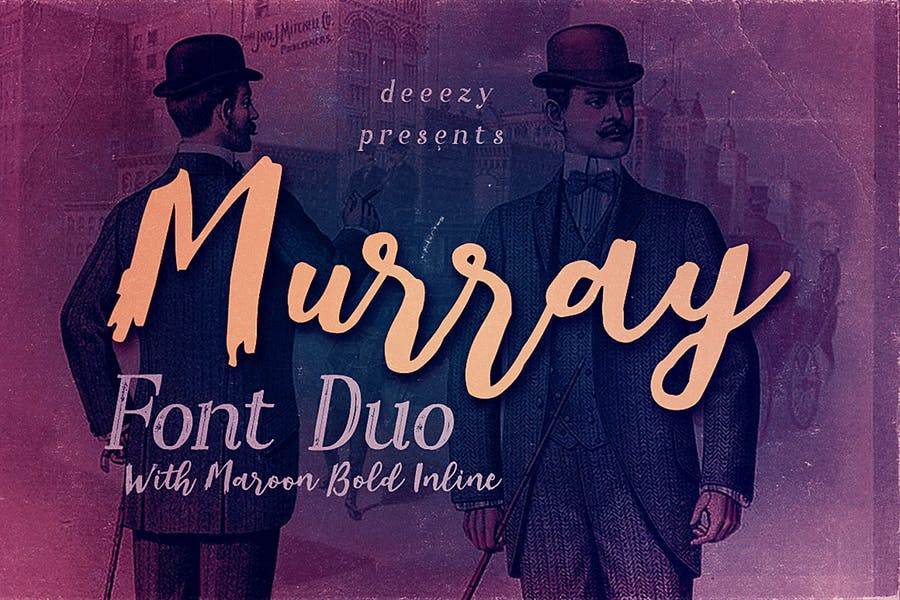
Murray Script Font
Murray Script Font is perfect for elegant wedding invitations, sophisticated stationery designs, upscale boutique branding, refined calligraphy services, luxury event materials, graceful personal branding, distinguished greeting cards, premium beauty products, exclusive social communications, and cultivated lifestyle brands.
Murray Script Font creates excitement because it embodies the timeless elegance and sophisticated charm of classic penmanship with its flowing script letterforms and refined character design. The font's graceful curves and aristocratic aesthetic instantly convey cultural sophistication and personal distinction, making any brand appear elegant and authentically refined. Its carefully crafted calligraphic details and distinguished character create an immediate sense of personal elegance that captivates audiences seeking sophisticated experiences, refined quality, and products that celebrate the transformative beauty of elegant handwriting and personal distinction.
The Murray Script Font family includes multiple weights and styles: Regular, Bold, Light, Medium, Italic, Condensed, Extended, Elegant, Graceful, and Distinguished versions. Each variant maintains the font's signature refined character while offering different levels of calligraphic styling and elegant authenticity suitable for various luxury and personal applications.
This sophisticated typeface brings the authentic spirit of refined penmanship into contemporary elegant design with remarkable grace and distinguished appeal. Murray Script Font Free Download provides luxury brands and personal service organizations with access to premium script typography that embodies the essence of personal refinement and calligraphic excellence. The font's elegant design and sophisticated authenticity make it ideal for businesses seeking to establish meaningful connections with discerning audiences who appreciate personal elegance, refined craftsmanship, and the transformative power of sophisticated communication that reflects personal distinction and cultural refinement. Whether you're creating materials for luxury events, designing communications for personal services, developing branding for elegant establishments, or producing content for refined lifestyle brands, this font delivers the sophisticated atmosphere that resonates with audiences seeking genuine elegance, personal quality, and the refined distinction that comes from embracing authentic sophisticated culture. Its versatile design ensures outstanding performance across both precious printed materials and elegant digital communications while maintaining the character of authentic calligraphic typography. The font excels in applications requiring personal credibility and elegant appeal. Luxury service professionals appreciate its ability to convey refined authenticity while remaining highly functional for various sophisticated communications and elegant promotional materials. The comprehensive character set includes elegant flourishes and extensive international language support, making it perfect for global luxury brands and international personal service organizations seeking to communicate authentic personal refinement, elegant sophistication, and distinguished quality to diverse worldwide audiences who embrace personal elegance, appreciate refined craftsmanship, and value the transformative power of genuine sophisticated communication that creates lasting impressions through personal distinction, elegant expression, and the timeless beauty of refined calligraphic artistry that elevates every message to the highest standards of personal sophistication.